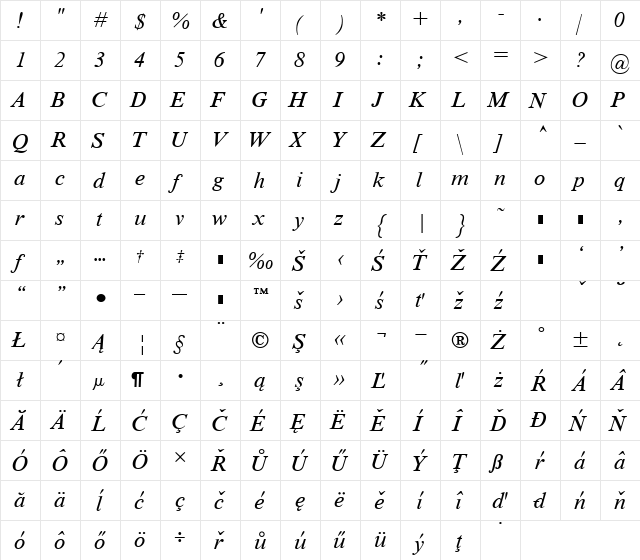
TmsEe Italic Font Preview
TmsEe Italic
Design Context for TmsEe Typeface
TmsEe takes a measured approach to typography — its balanced proportions and neutral character make it a reliable workhorse for both digital and print work. Its italic angle brings a sense of urgency and motion to the letterforms.